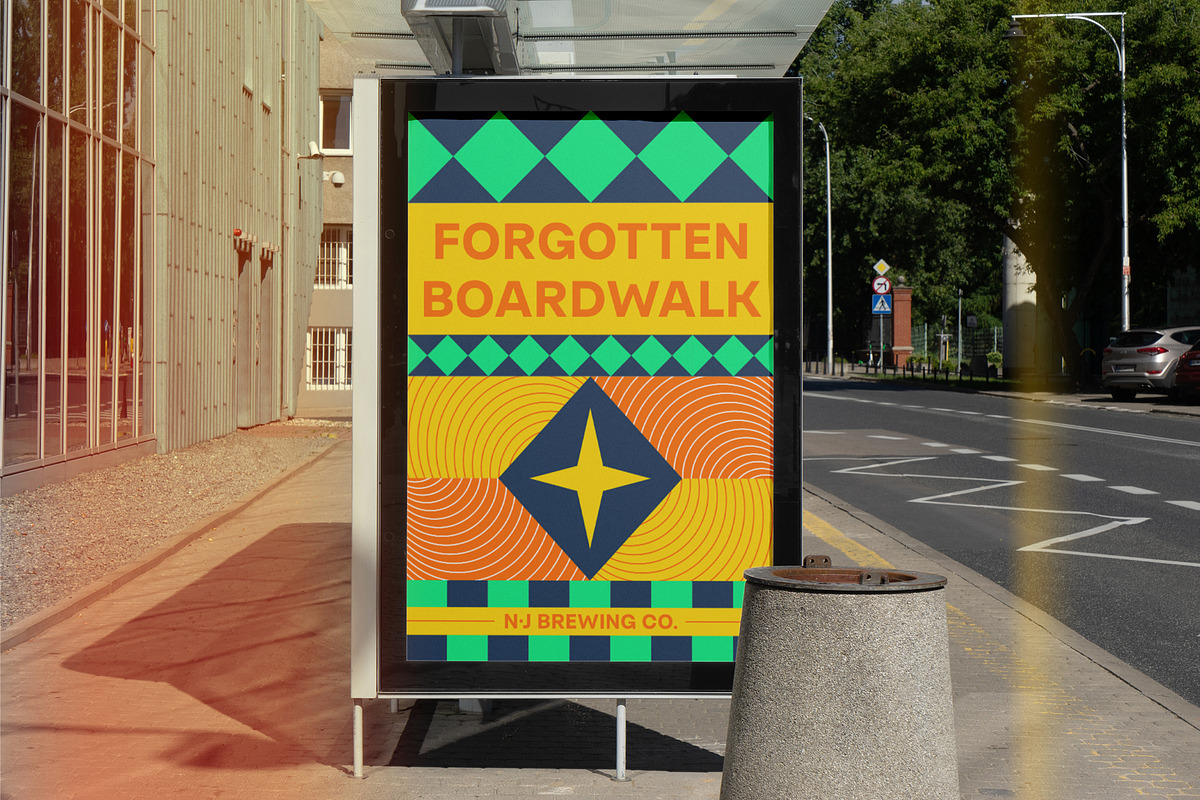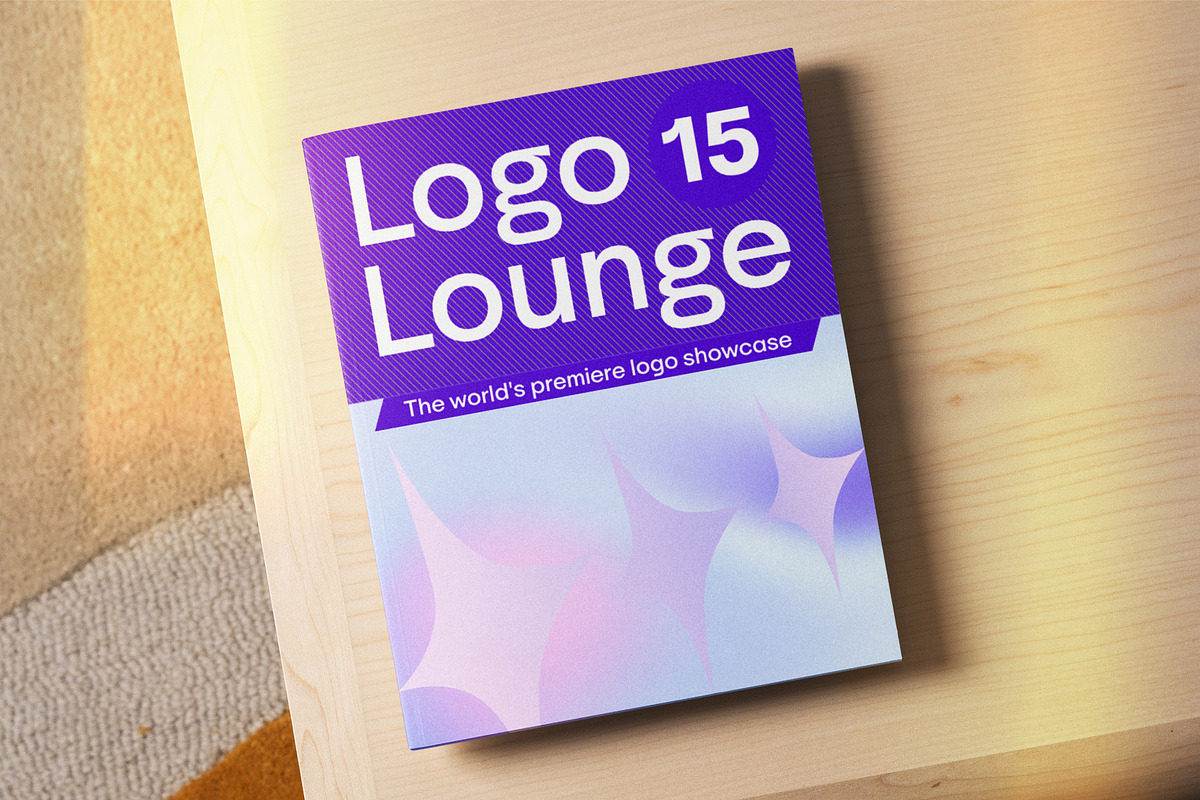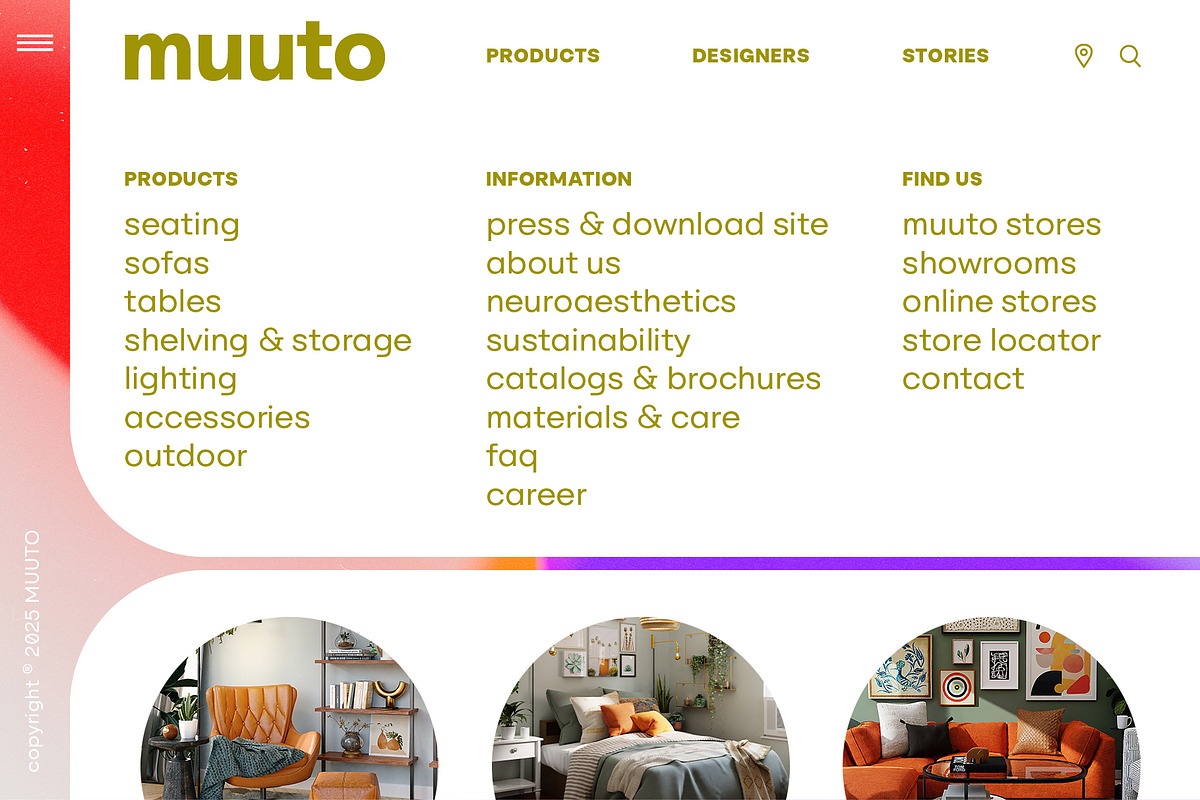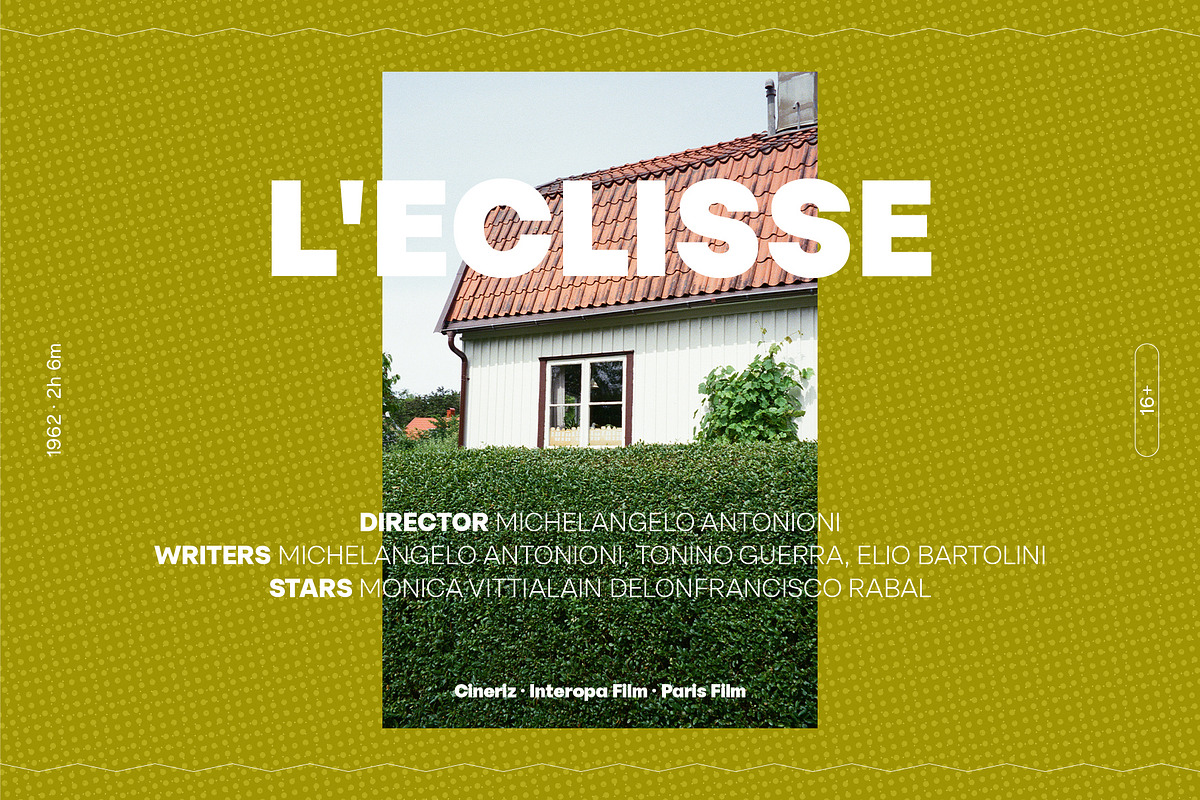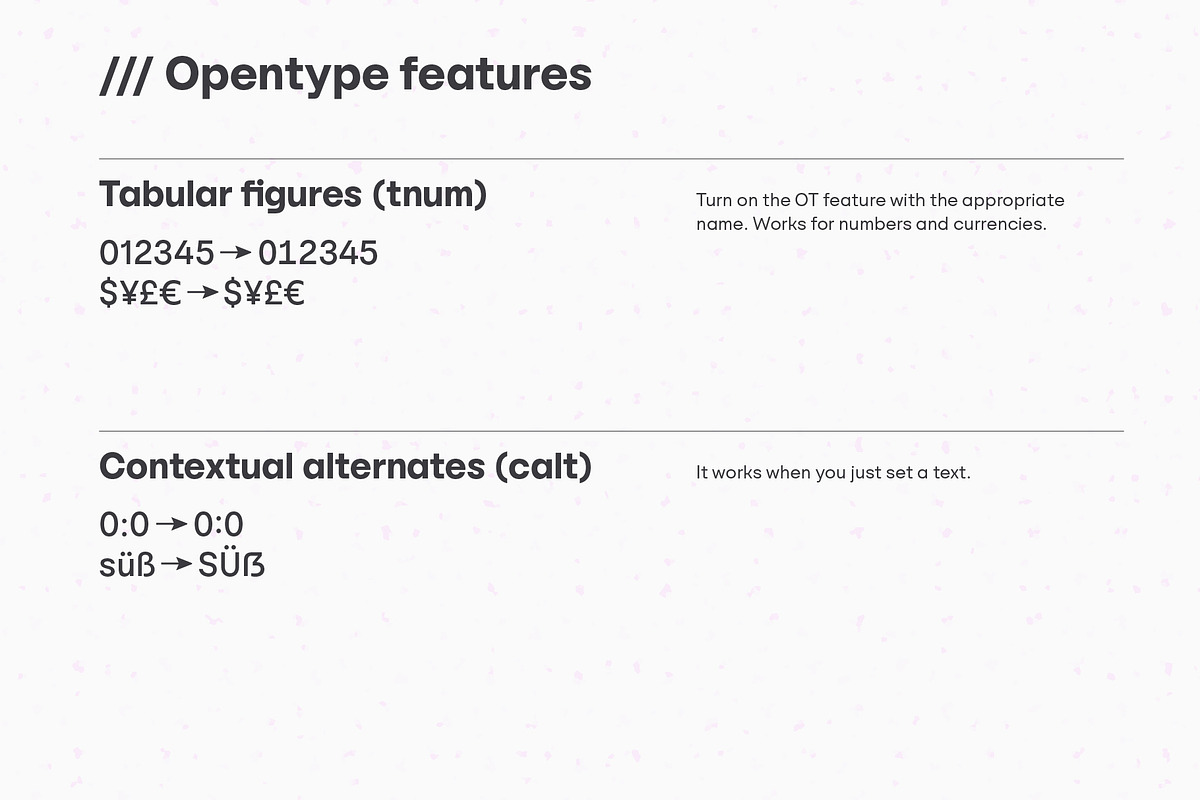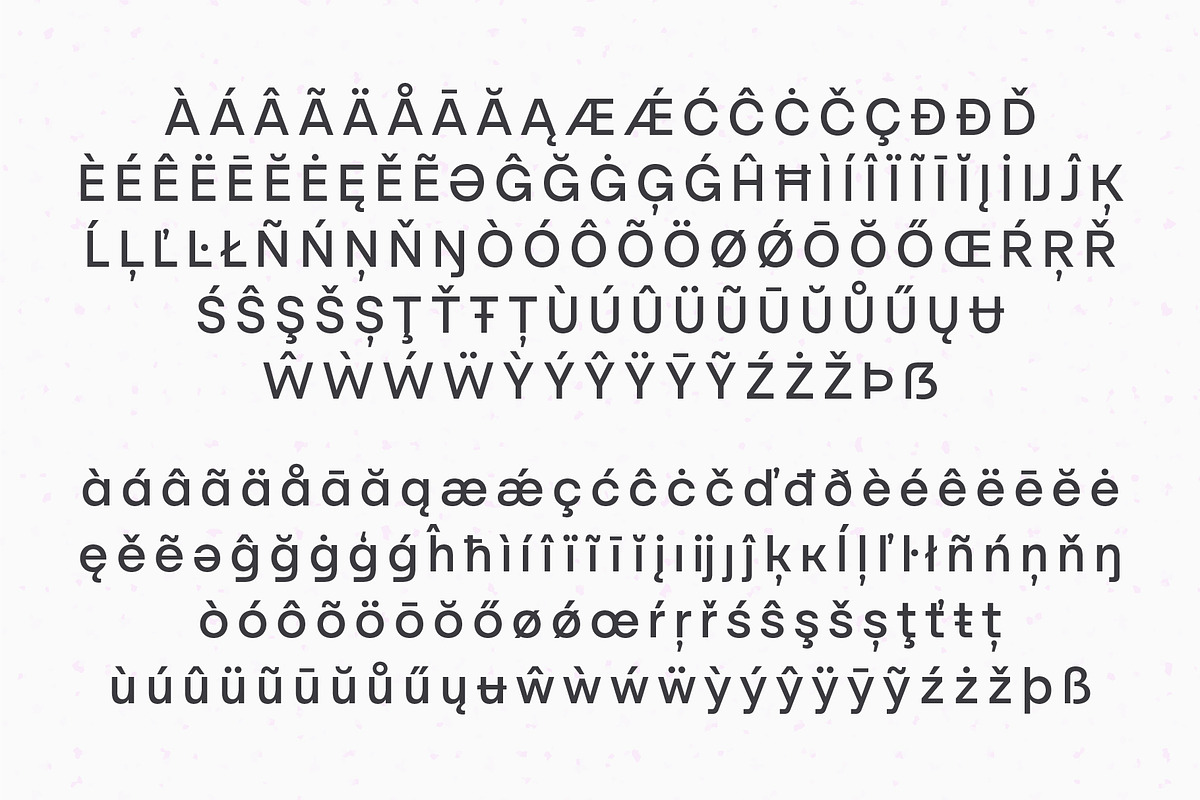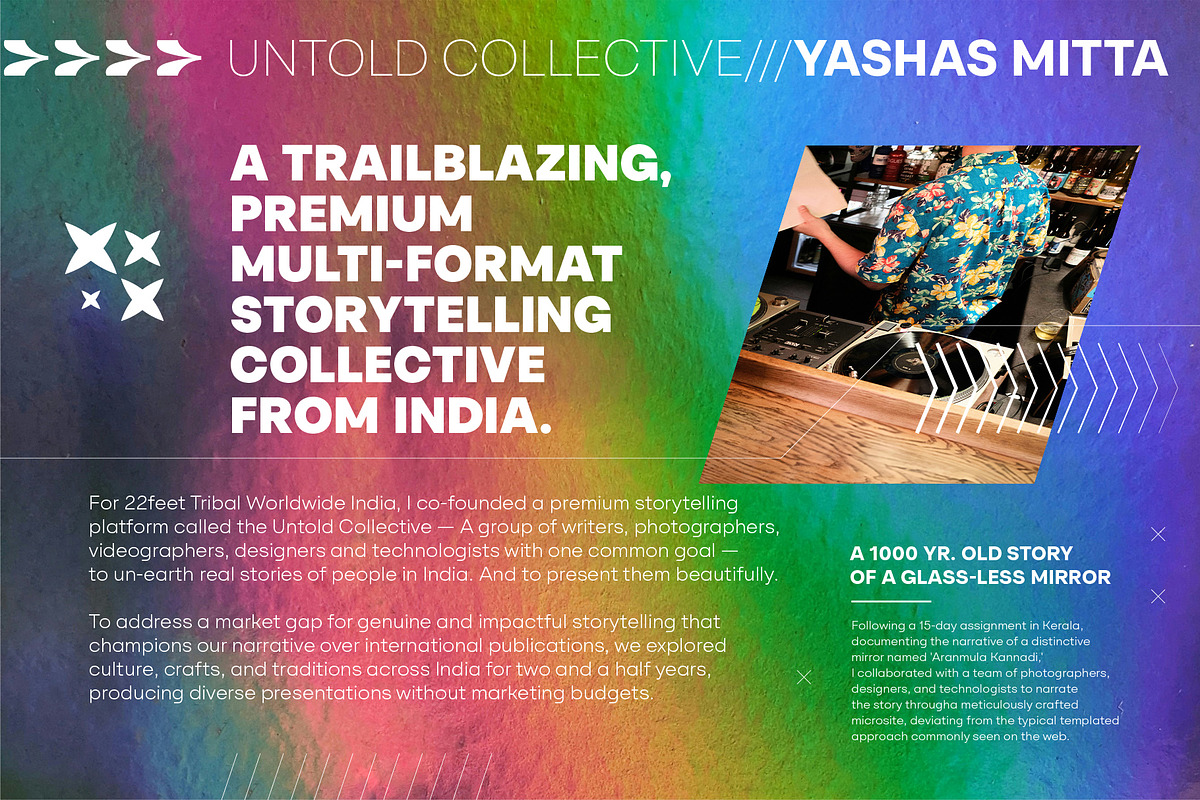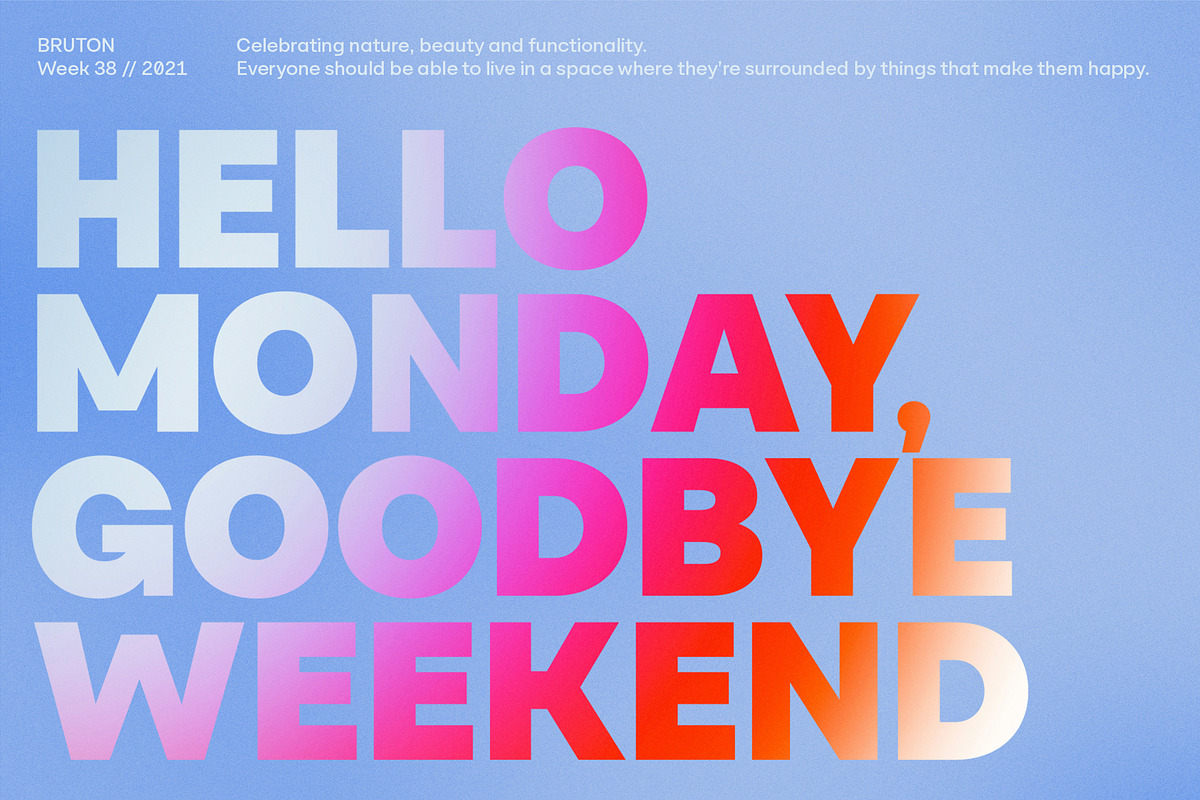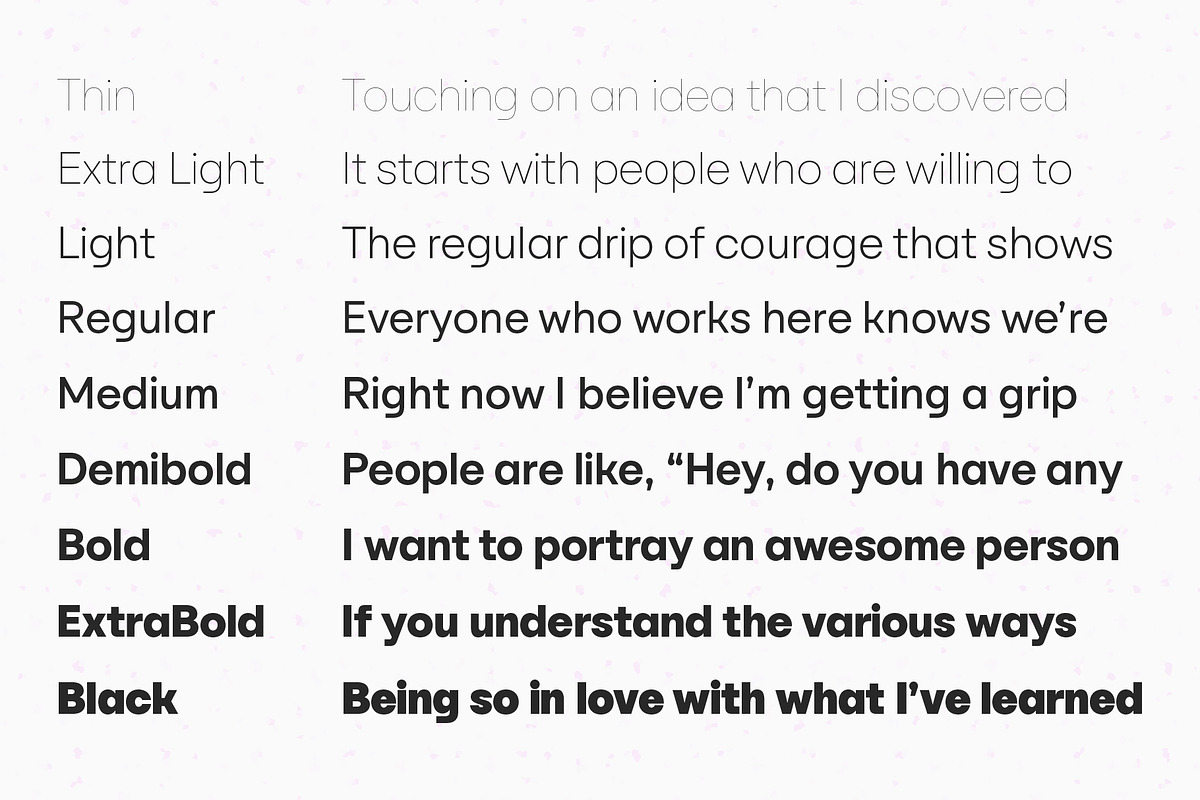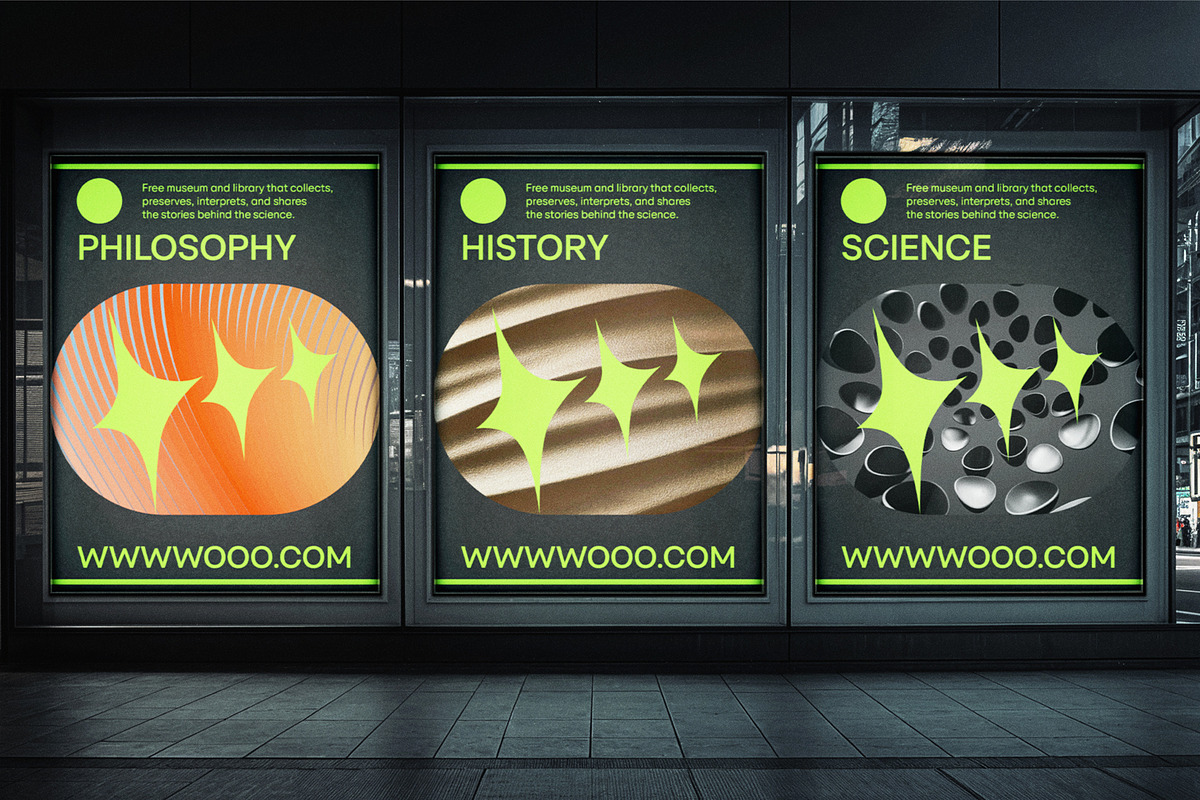
YNF Norman | 9 weights sans serif
Hello! YNF Norman is here! 9 weights, modern geometric based style, very suitable for contemporary design projects. It can serve as the basis for corporate styles or just be used as the main font. Wide range of applications in printing, advertising, video and web design, stationary and souvenir products.
- Uppercase and lowercase letters
- Tabular numbers (tabular lining)
- Stylistic alternates
- Stylistic sets
- Opentype features and localized forms